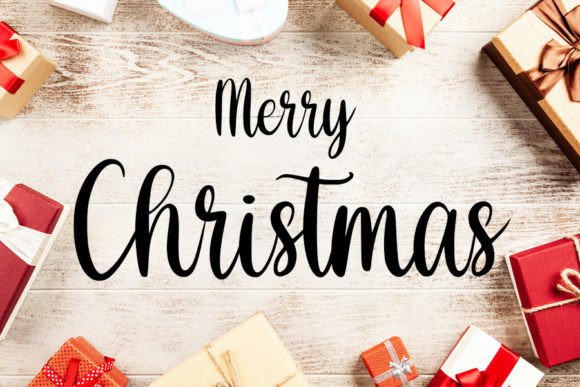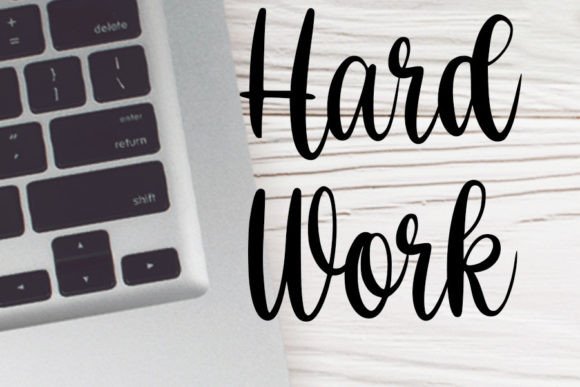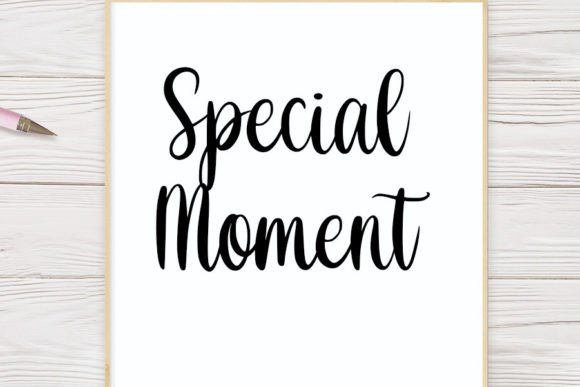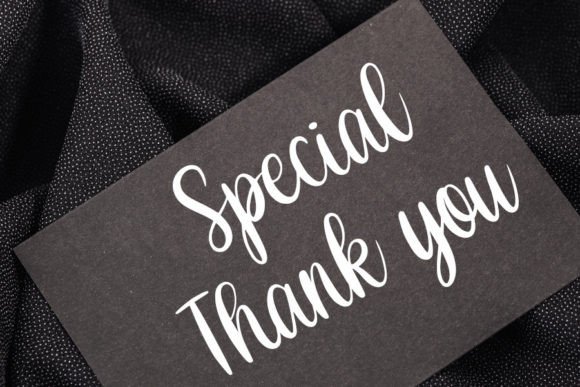
Monday Font
About Monday Font
Monday font is a charming and elegant handwritten script that brings a refined, personal touch to any design. This versatile font is ideal for a wide variety of projects that require a delicate handwritten feel. Whether you’re designing wedding invitations, thank you cards, or logos, Monday font adds a graceful and sophisticated look.
Elegant Handwritten Style of Monday Font
The appeal of Monday font lies in its smooth, flowing strokes and balanced letterforms. This font combines the beauty of natural handwriting with clear readability, making it perfect for both formal and casual designs. Its elegant style creates a warm and inviting atmosphere, enhancing the emotional impact of your projects.
Versatile Uses for Monday Font
Designers use Monday fon for many creative applications, such as:
• Wedding invitations and event stationery
• Thank you cards and greeting cards
• Logos and branding materials
• Business cards and personal stationery
• Inspirational quotes and social media graphics
This versatility ensures that Monday fon fits seamlessly into both professional and personal projects.
Adding Sophistication and Charm
Monday fon is a wonderful choice when you want to add sophistication and charm to your designs. It brings a handcrafted, intimate feel that makes every project stand out. Whether for print or digital use, this font ensures your message is delivered with warmth and elegance.
Why Choose Monday Fon?
• Combines elegance with clear readability
• Perfect for a wide range of design projects
• Adds a personal, handwritten touch
• Suitable for print and digital media
• Enhances warmth and sophistication
Final Thoughts on Monday Font
In conclusion, Monday fon is an elegant and charming handwritten script that enhances your creative projects with a personal and sophisticated touch. Add Monday fon to your collection to create memorable, beautiful designs for weddings, branding, and more.